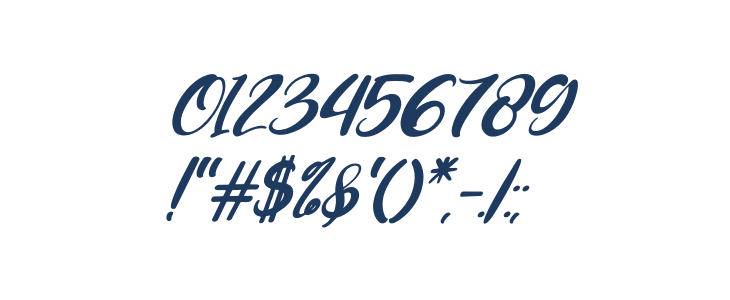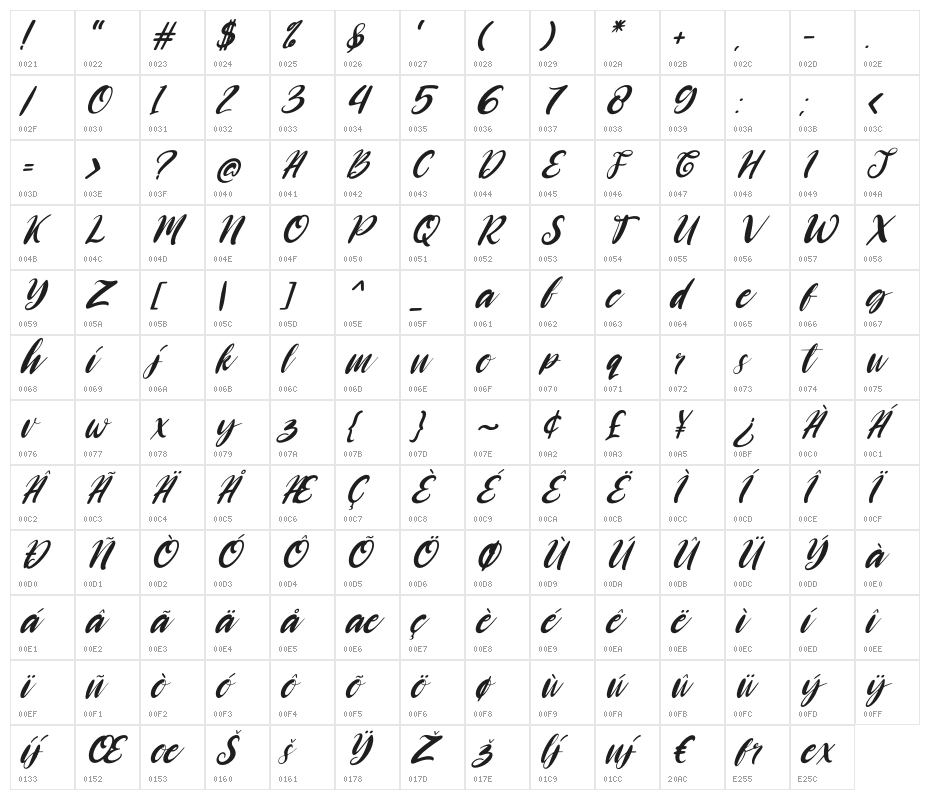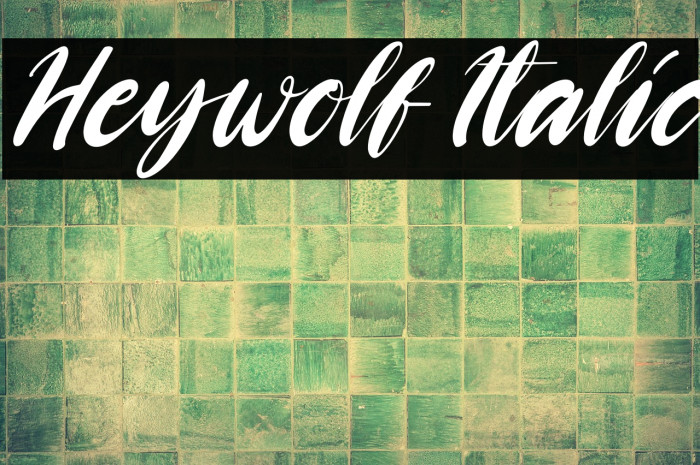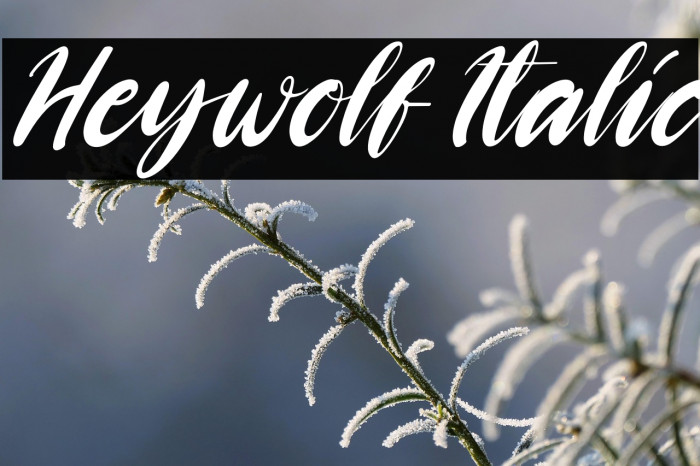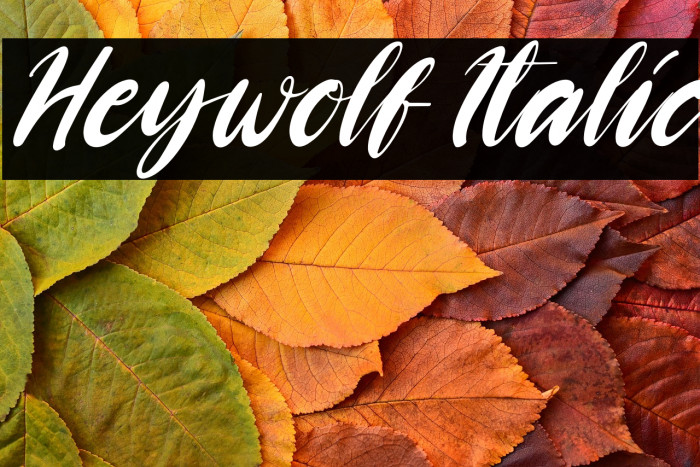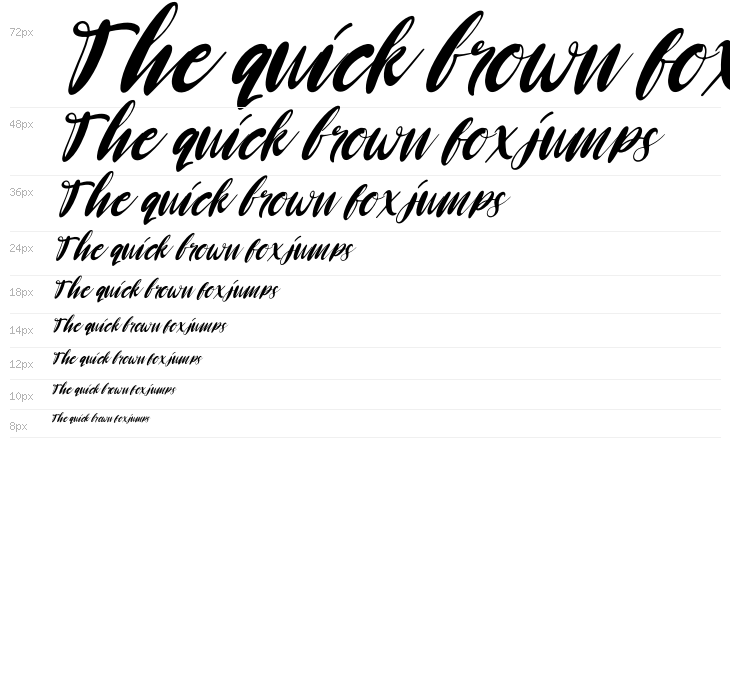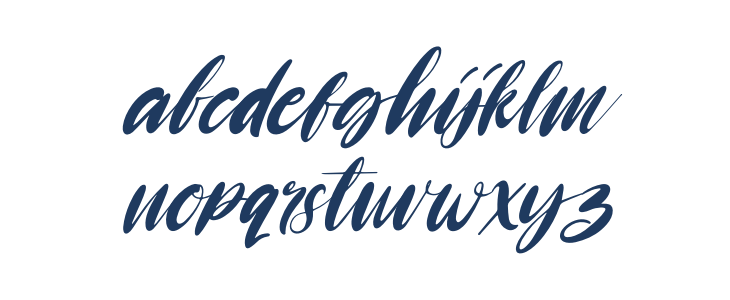
Heywolf Italic Font
Heywolf Italic Description
This font features a dynamic and flowing script style, characterized by its elegant, cursive letterforms. The strokes are bold and sweeping, with a consistent slant that gives it a sense of motion and fluidity. The uppercase letters are ornate, with flourishes that add a touch of sophistication, while the lowercase letters maintain a cohesive and harmonious appearance. The numerals and special characters are designed to match the overall aesthetic, ensuring a seamless integration across different types of content. This font exudes a sense of elegance and creativity, making it suitable for a variety of design projects.